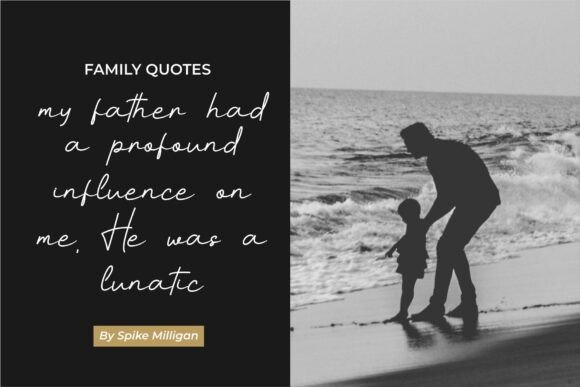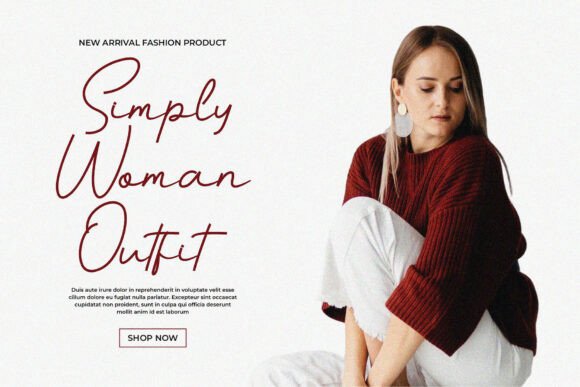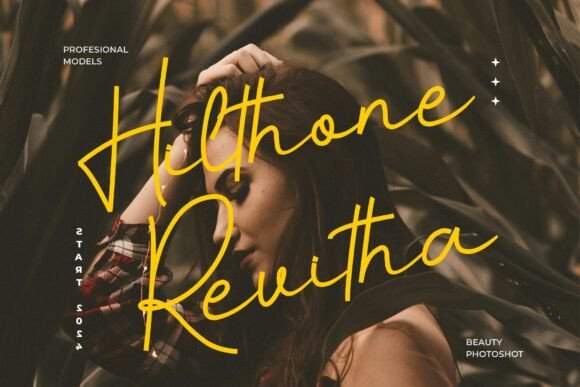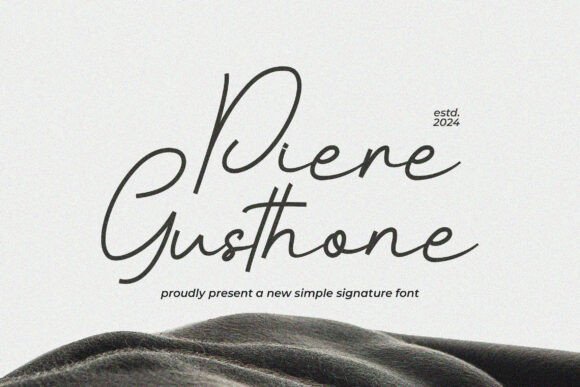
Introduction to Piere Gusthone Font
Piere Gusthone is a gorgeous and bold handwritten font, crafted to give your headlines and logotype projects a stylish touch.
This font reads as strong, confident, and dynamic and can add tons of nostalgic character to your designs .
Piere Gusthone Font offers exceptional quality and versatility, making it a valuable addition to your design toolkit. Whether you’re creating for personal projects or commercial use, Piere Gusthone Font delivers professional results.